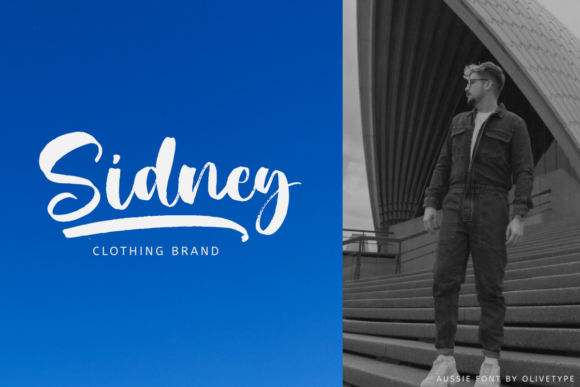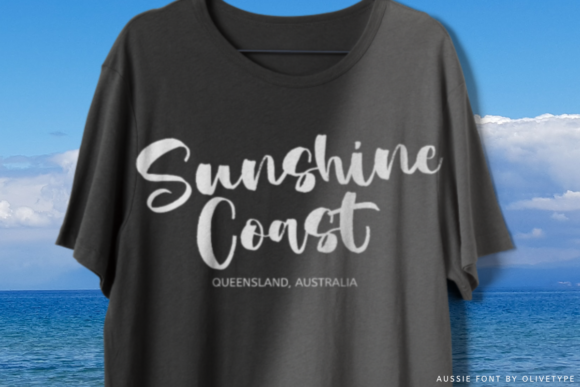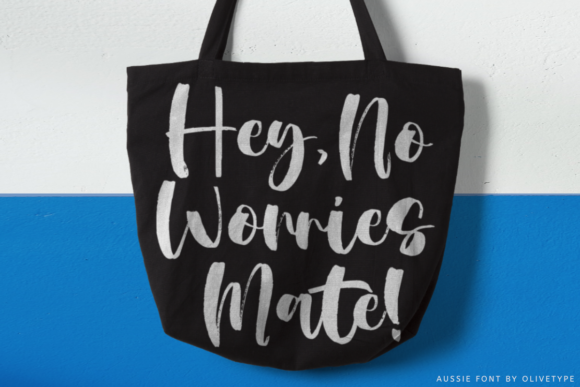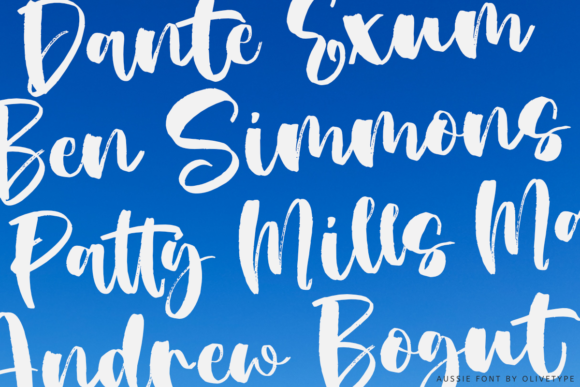
Aussie Font: Elevate Your Designs with Sophistication and Elegance
In the world of typography, fonts play a crucial role in conveying the tone and personality of a design. For designers and crafters seeking to add a touch of sophistication and elegance to their projects, Aussie Font is an excellent choice. This chic, refined script font is designed to emanate luxury and refinement, making it perfect for a wide range of applications.
The Characteristics of Aussie Font
Aussie Font boasts a range of features that set it apart from other script fonts. Its stylish alternates and ligatures provide a high level of versatility, allowing designers to create unique and visually appealing text arrangements. The font’s refined lines and curves evoke a sense of classic elegance, while its modern sensibilities ensure it remains fresh and relevant.
What Makes Aussie Font Stand Out
- Sophisticated and Elegant: Aussie Font is designed to bring a touch of sophistication and elegance to any project. Its refined lines and curves make it perfect for designs that require a high level of luxury and refinement.
- Stylish Alternates and Ligatures: The font features a range of stylish alternates and ligatures, providing designers with the flexibility to create unique and visually appealing text arrangements.
- Versatile: Aussie Font is suitable for a wide range of applications, from branding and packaging to wedding invitations and digital marketing materials.
- Easy to Read: Despite its elegant and refined nature, Aussie Font remains easy to read, making it perfect for body text as well as headlines.
Using Aussie Font in Your Designs
Aussie Font is an incredibly versatile typeface that can be used in a variety of design applications. Here are a few ideas to get you started:
- Branding and Packaging: Use Aussie Font to create luxurious and sophisticated brand identities that stand out from the crowd.
- Wedding Invitations: Add a touch of elegance and refinement to your wedding invitations and stationery with Aussie Font.
- Digital Marketing Materials: Use Aussie Font to create eye-catching digital marketing materials, such as social media graphics and email newsletters.
- Signage and Displays: Aussie Font is perfect for signage and displays that require a high level of sophistication and elegance.
Tips for Pairing Aussie Font with Other Fonts
Pairing Aussie Font with other fonts can help to create visually appealing and harmonious design arrangements. Here are a few tips to keep in mind:
- Pair with Sans Serifs: Pairing Aussie Font with sans serif fonts, such as Arial or Helvetica, can create a striking contrast between elegant and modern.
- Combine with Script Fonts: Combining Aussie Font with other script fonts can create a beautiful and elegant text arrangement.
- Use with Bold Fonts: Pairing Aussie Font with bold fonts can create a striking contrast between light and heavy.
Aussie Font is a sophisticated and elegant script font that is perfect for designers and crafters seeking to add a touch of luxury and refinement to their projects. With its stylish alternates and ligatures, versatile design, and easy readability, Aussie Font is an excellent choice for a wide range of applications. Whether you’re creating branding and packaging, wedding invitations, or digital marketing materials, Aussie Font is sure to elevate your designs and leave a lasting impression.